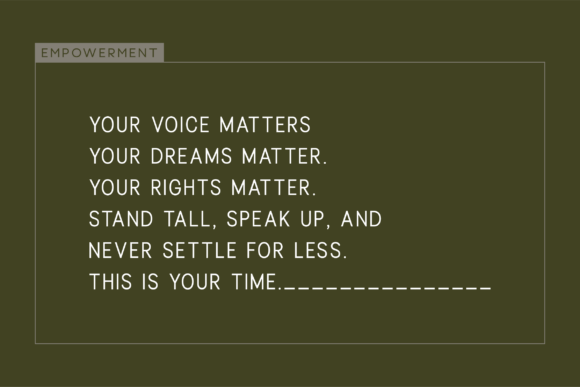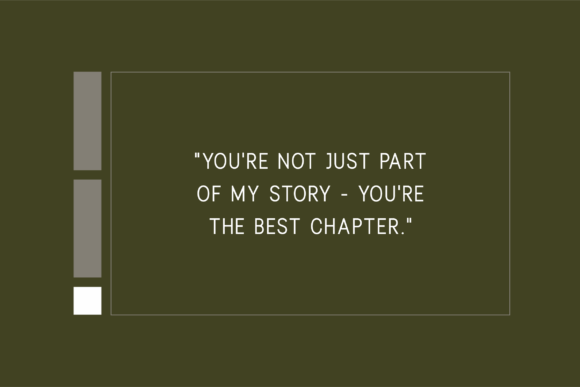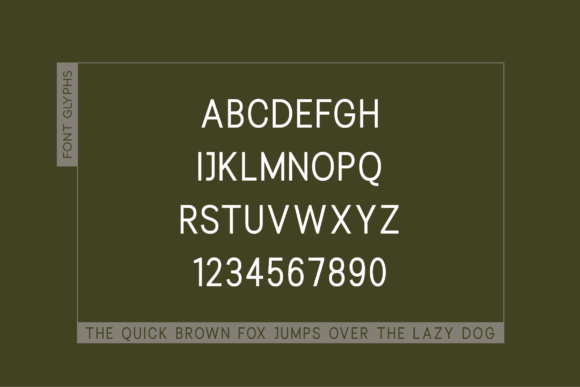
Introduction to Neyroshyu Font
As a designer, there’s nothing quite like the rush of finding the perfect font to elevate your creative project. You’ve spent hours pouring over design resources, searching for that one font that perfectly captures the essence of your vision. And then, it happens – you stumble upon Neyroshyu Font, a stunning uppercase sans serif typeface that seems tailor-made for your project.
With its sleek, minimalist character and refined lines, Neyroshyu Font conveys a sense of power and confidence that’s hard to ignore. Whether you’re working on a logo, website, or print material, this high-quality font delivers a bold presence that demands attention. And with its transparent background, you can rest assured that your design will shine through, unobstructed by distracting backgrounds.
As a valuable design resource, Neyroshyu Font offers exceptional adaptability, effortlessly fitting both digital platforms and premium branding applications. Its sturdy, geometric foundation guarantees exceptional legibility and emphasis, making it an excellent choice for headlines, posters, and any setting where your message needs to command attention. And the best part? You can download it for free, giving you the freedom to unleash your creativity without worrying about budget constraints.
Key Features of Neyroshyu Font
- Features a unique, futuristic design with a transparent background
- Includes a range of characters, including uppercase and lowercase letters, numbers, and punctuation
Honest Review: Neyroshyu Font
As a designer, I’m always on the lookout for high-quality design resources that can elevate my creative projects. Recently, I came across the Neyroshyu Font, and I must say it’s been a game-changer for my design work.
What works well: ✨ The Neyroshyu Font has a unique and modern design aesthetic that sets it apart from other fonts. The transparent background and scalable vector graphics make it perfect for use in a variety of creative projects, from logos to infographics. I’ve also found it to be highly customizable, allowing me to tweak the font to fit my design needs.
Some limitations: ⚠️ While the Neyroshyu Font is a high-quality design resource, it’s worth noting that it’s a free download, which may limit its availability in certain commercial projects. Additionally, some users may find the font’s modern design aesthetic to be too trendy or overused.
Overall, I’m impressed with the Neyroshyu Font and would highly recommend it to any designer looking for a high-quality, free design resource. With its unique design aesthetic and high level of customization, it’s a great addition to any design toolkit.
- Unique and modern design aesthetic
- Transparent background and scalable vector graphics
How to Use Neyroshyu Font
The Neyroshyu Font is a free design resource ideal for creative projects that require a unique and high-quality font. Its transparent background and elegant design make it a versatile tool for various applications.
To get the most out of the Neyroshyu Font, experiment with different font sizes, colors, and arrangements to achieve the desired visual effect. You can also combine the font with other design elements to create a unique and engaging design.
The Neyroshyu Font is suitable for a wide range of creative projects, including logos, brochures, posters, and social media graphics. Its elegant design and transparent background make it an ideal choice for designs that require a touch of sophistication and style.